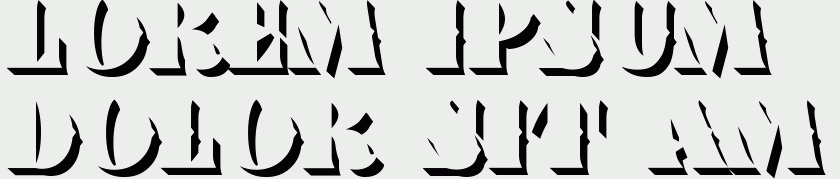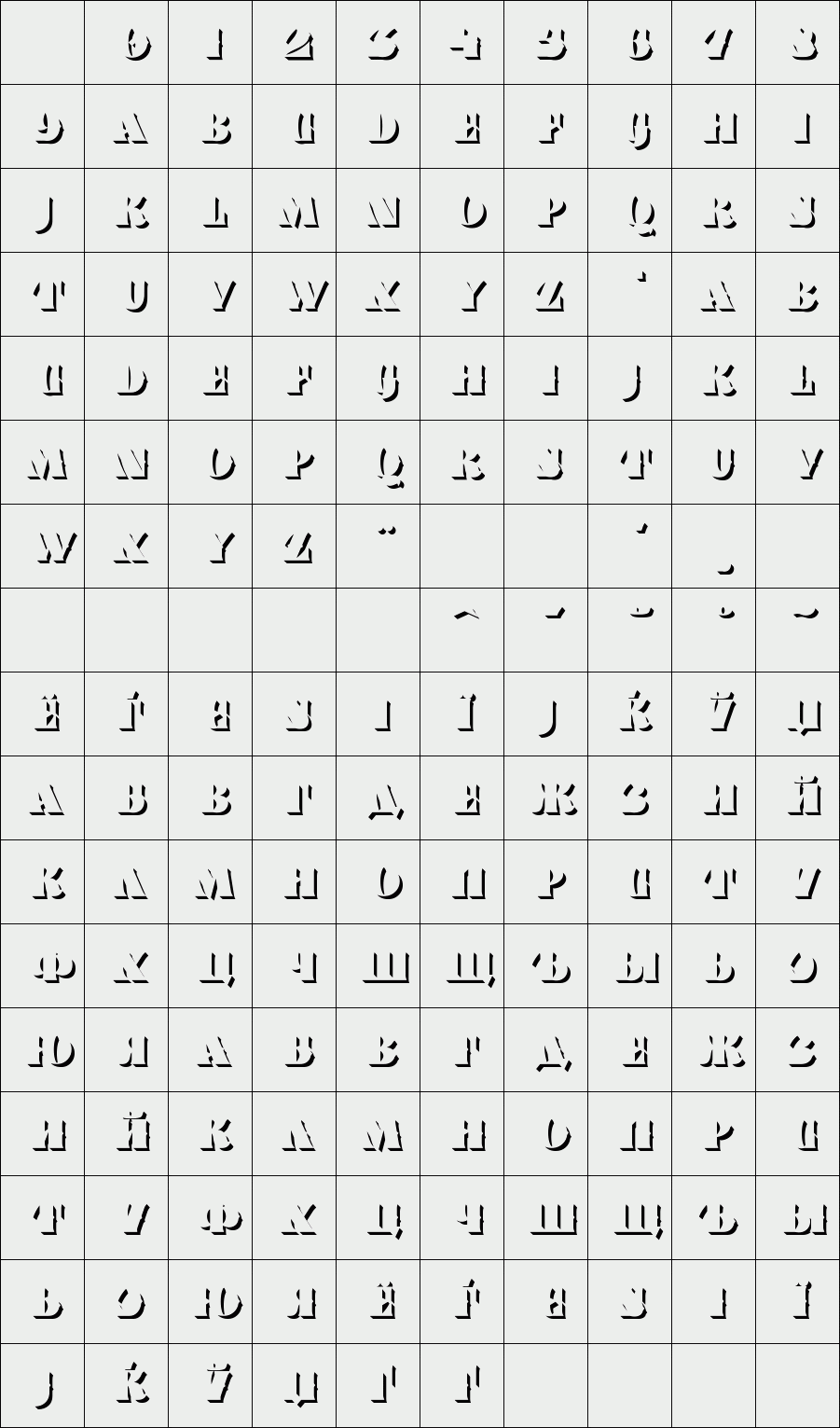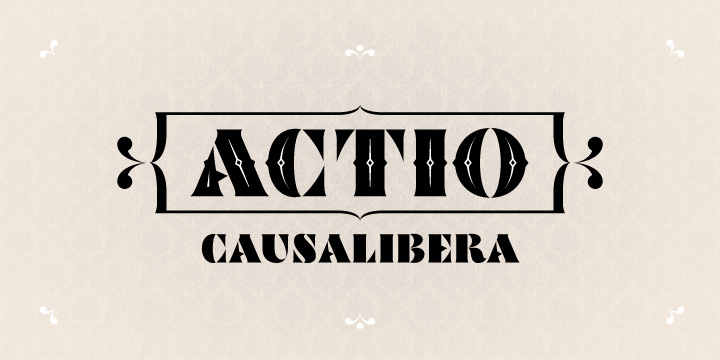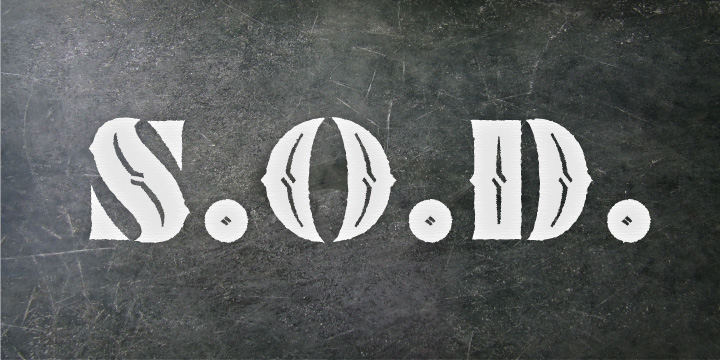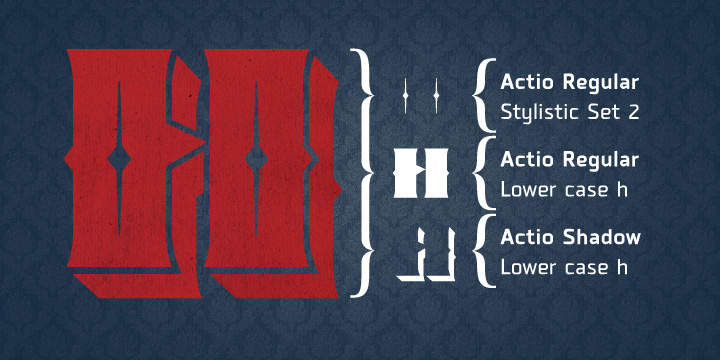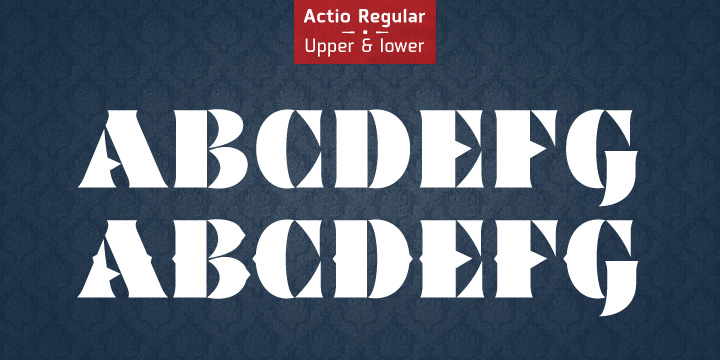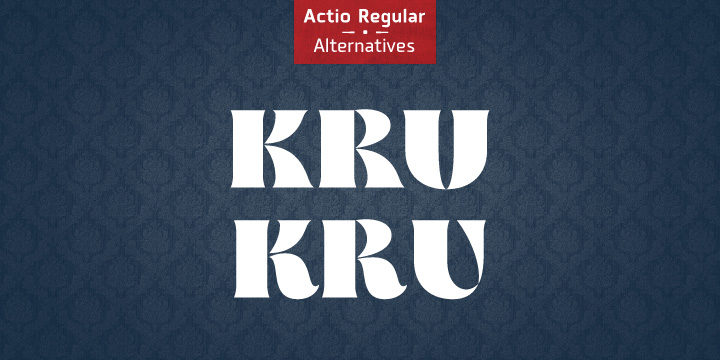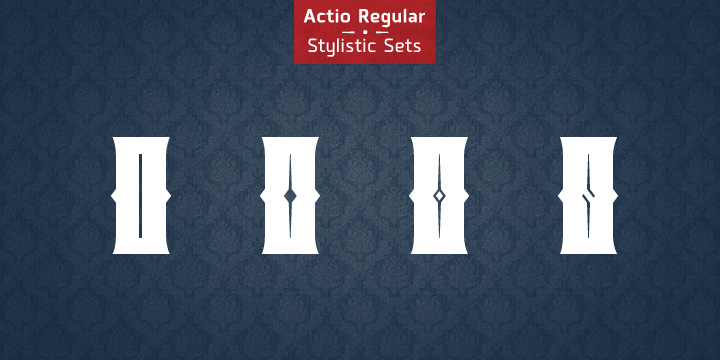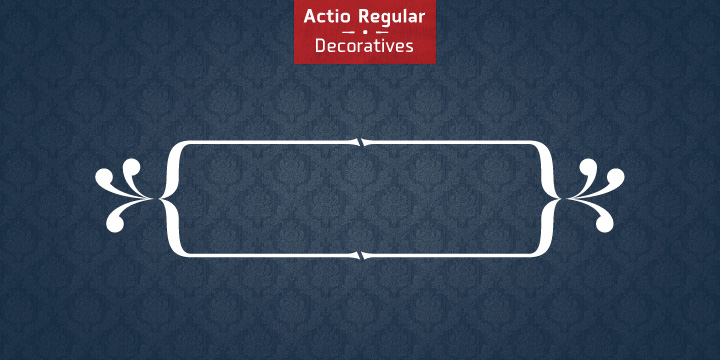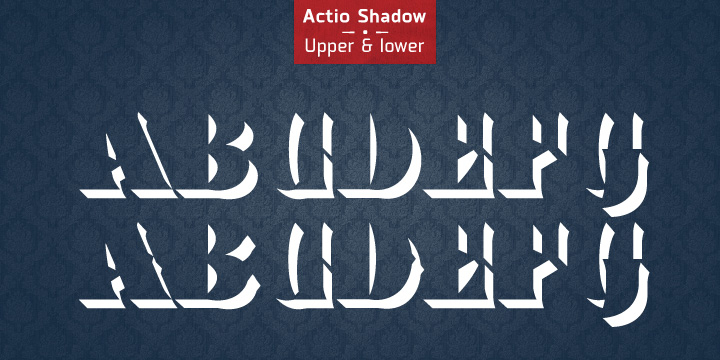
Actio
/ Actio Shadow
Actio is unicase serif typeface with spurs on lowercase characters. Actio slightly inspired by Bodoni style fonts. Actio have numerous alternatives, some decorative elements and 4 Stylistic Sets for characters decorative elements.
Designer: Gaslight Type Foundry